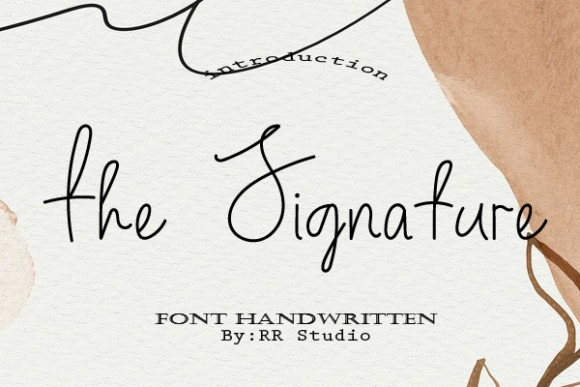
About The Signature Font
The Signature font is a true embodiment of style and elegance. Its sophisticated and impeccably crafted letterforms make it a perfect choice for a variety of design projects. With its timeless appeal, The Signature font shines particularly on special occasions and projects that require a personal and elegant touch.
When applied to wedding invitations, The Signature font adds a touch of refinement and charm that perfectly captures the sentiment of love and celebration. Its graceful strokes and flowing lines create a sense of intimacy and sophistication, setting the tone for a memorable event.
Thank you cards and greeting cards adorned with The Signature font become more than just messages; they become heartfelt expressions of gratitude and warmth. The font’s handwritten quality adds a personal touch that resonates with recipients and makes them feel truly valued.
Quotes and inspirational phrases take on new life with The Signature font. Its elegant and stylish appearance elevates the words, making them stand out and leaving a lasting impression on readers. Whether used in print or digital media, this font adds a touch of class to your message.
Logos and business cards designed with The Signature font exude professionalism and refinement. The font’s unique and memorable style creates a strong visual identity for your brand, making it instantly recognizable and leaving a positive impression on clients and customers.
The versatility of The Signature font makes it a valuable asset in various design contexts. Its ability to blend seamlessly with different elements and aesthetics ensures that it will enhance the beauty and impact of any project it’s applied to. Whether you’re working on invitations, cards, logos, or other designs, The Signature font brings a touch of elegance and sophistication that is sure to captivate and impress.